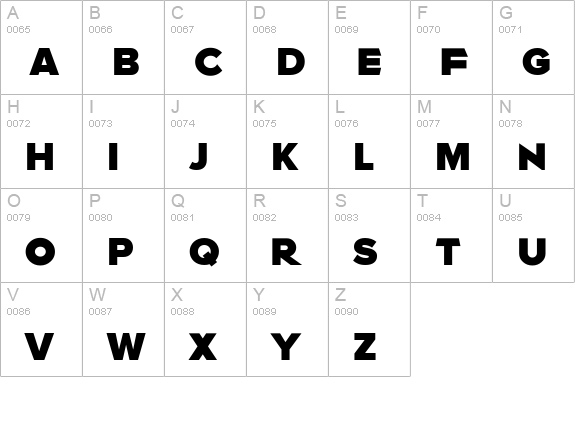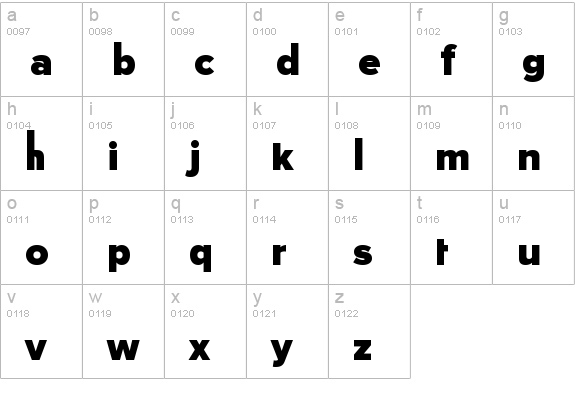
Introducing the stunning 20th Century Fox My Fonts font, a timeless typeface that exudes elegance and sophistication. This beautifully crafted font captures the essence of classic Hollywood glamour, making it perfect for adding a touch of old-world charm to your designs. With its sleek lines and graceful curves, 20th Century Fox My Fonts font is sure to make a statement in any project.